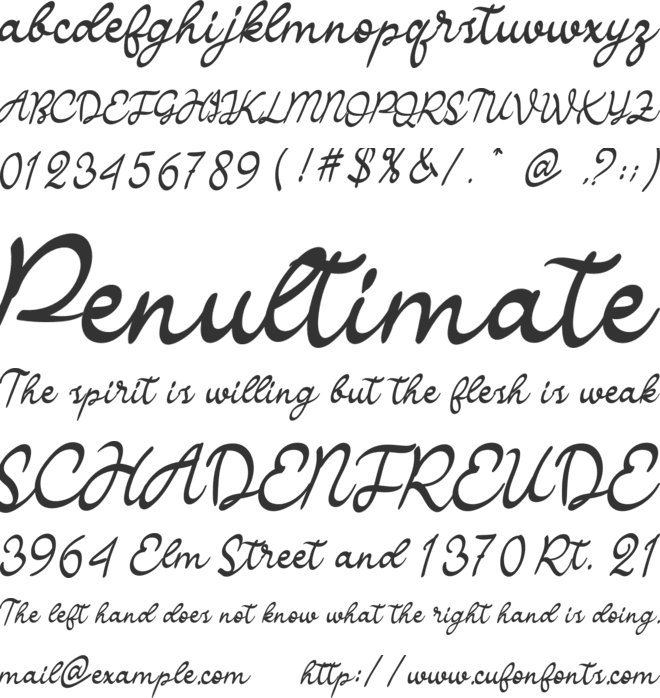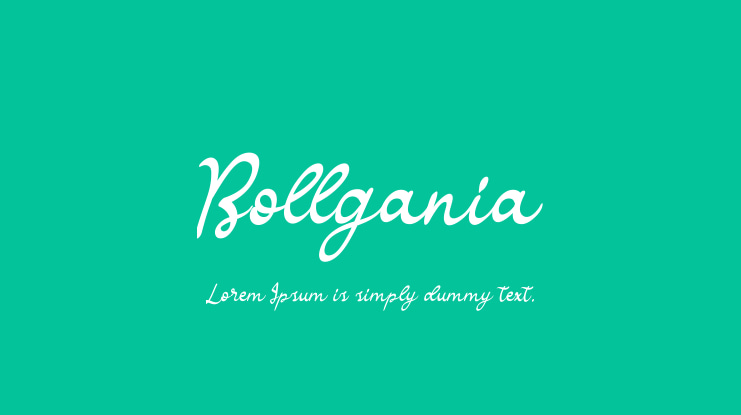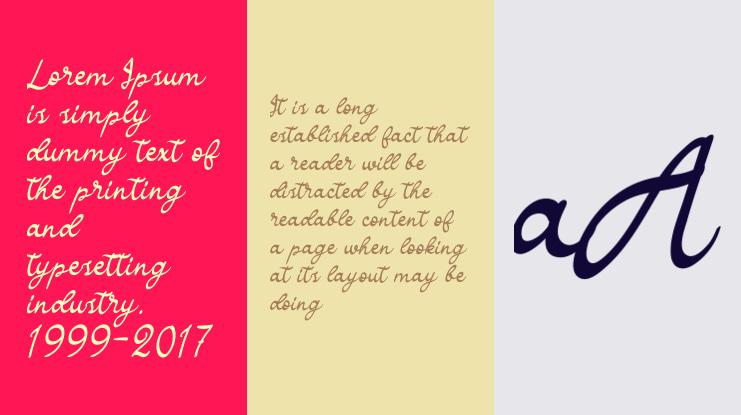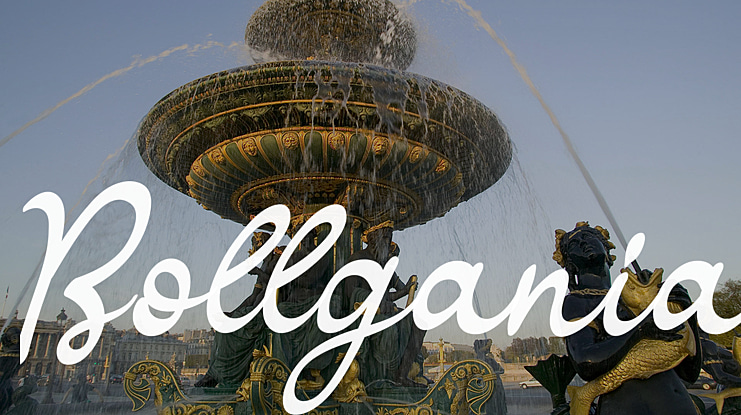
Bollgania Font Family
DETAILS the latest style letters are perfect for wall displays, wedding invitations, social media post logos, advertisements, product packaging, product designs, labels, photography, watermarks, invitations, stationery, and any project that requires taste handwriting.